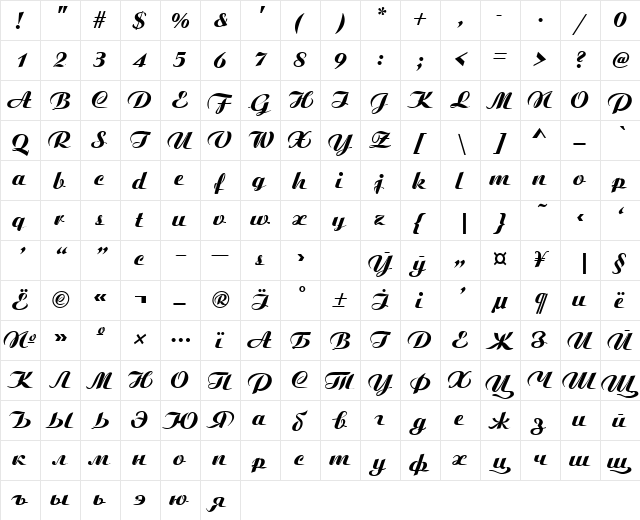
Boyarsky Bold Italic Font Preview
Boyarsky Bold Italic
Design Context for Boyarsky Typeface
Boyarsky is a composed and adaptable typeface that performs quietly and consistently across a wide range of design contexts. The slanted form adds forward momentum and visual energy. The heavy weight commands attention and anchors typographic hierarchies.
Pro Tip: Use Boyarsky for emphasis, pull quotes, and subheadings where its slanted energy can add rhythm to the layout.